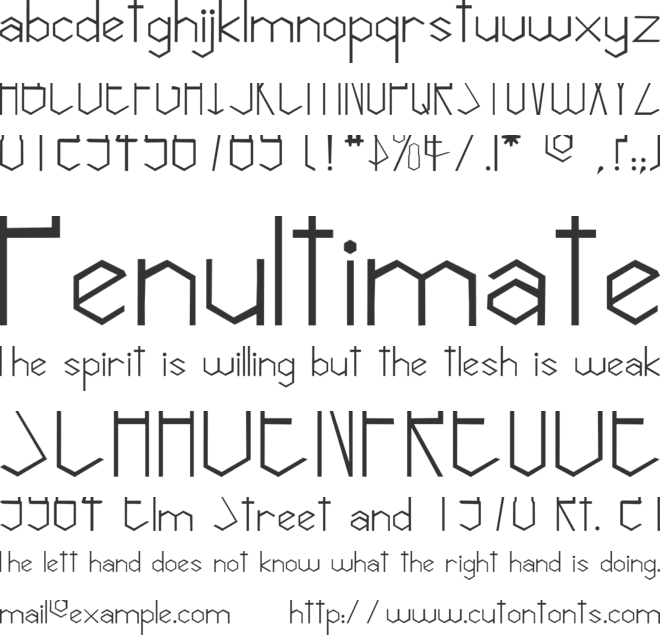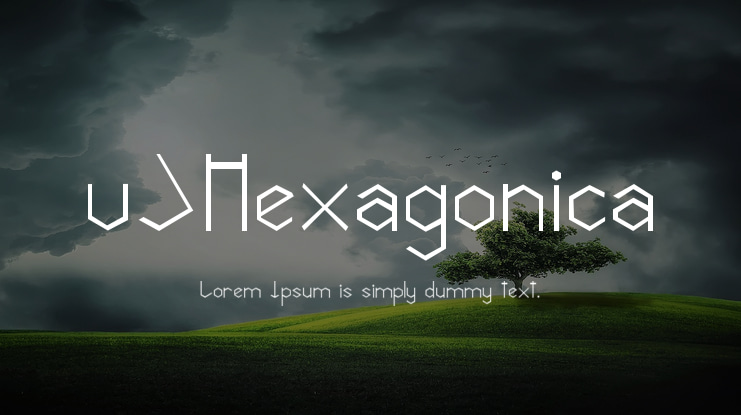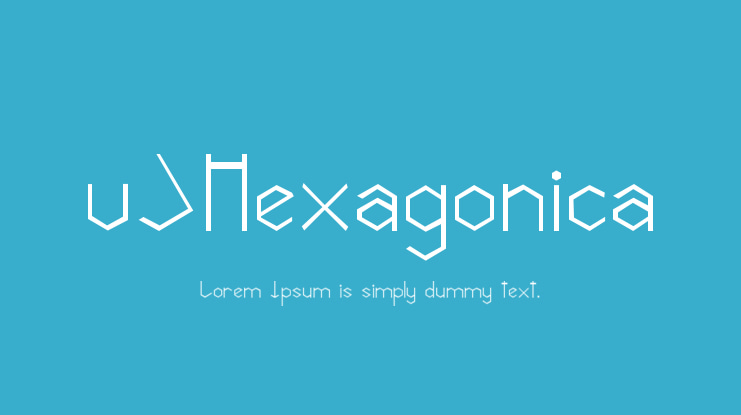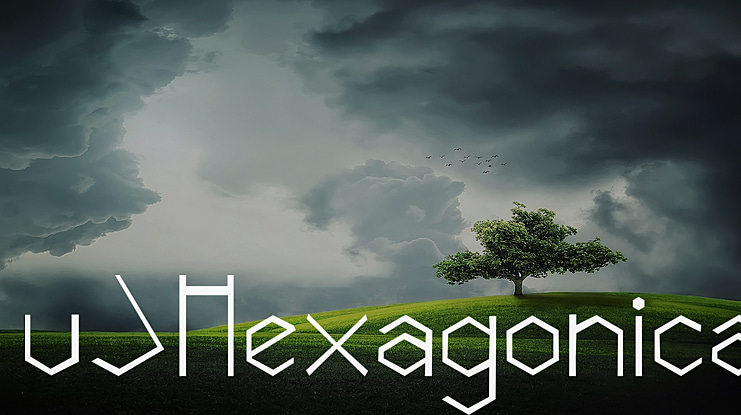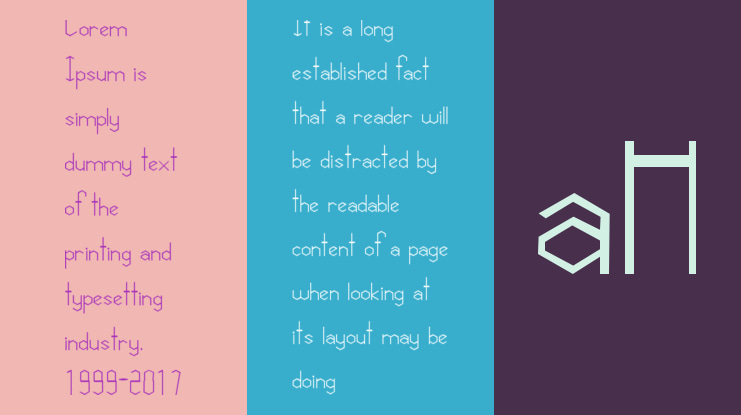
A refreshing geometric take on typography. Easy to see. Easy to read. Stylish. Clean. Inspired by a simple hexagon. Mechanical forms reminiscent of a blue print font.